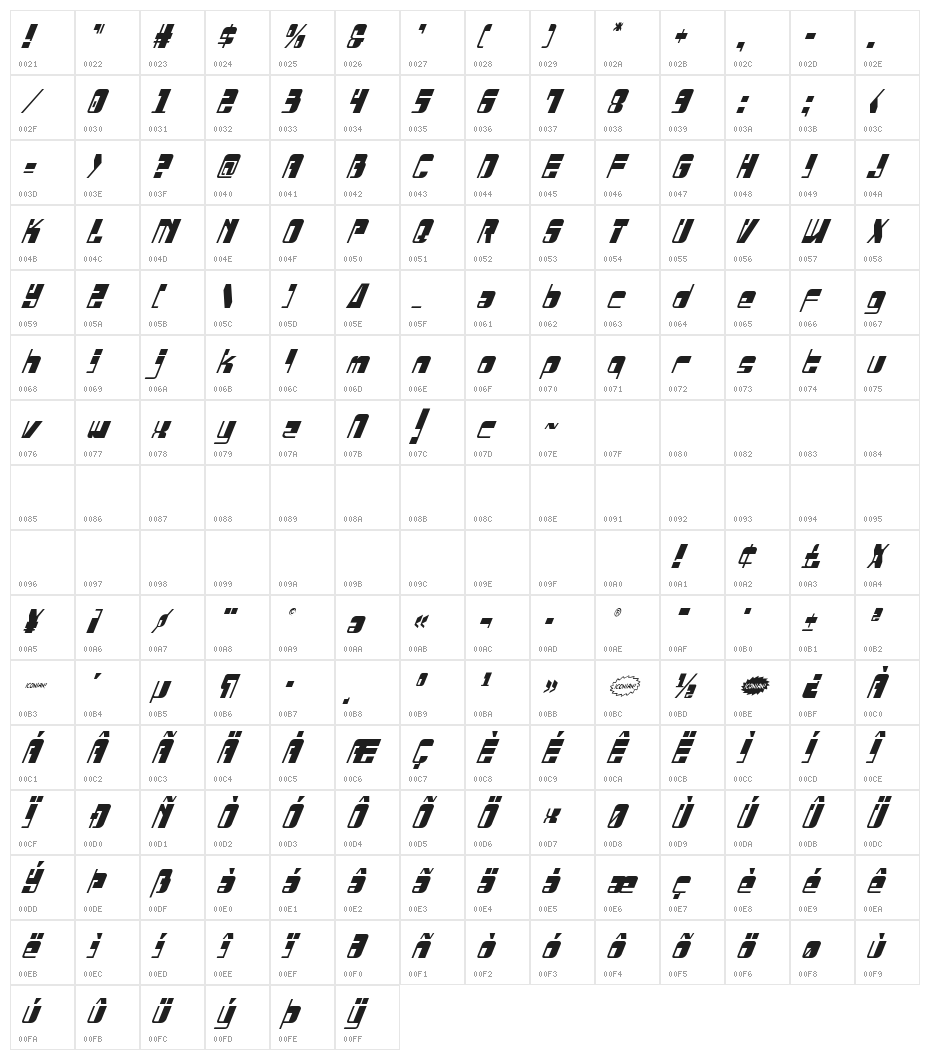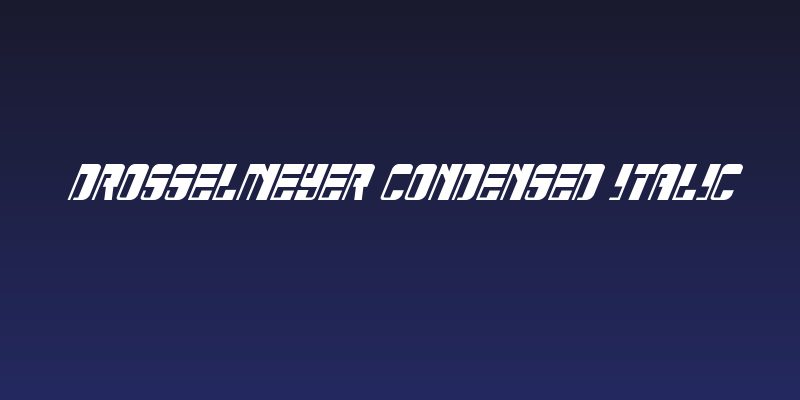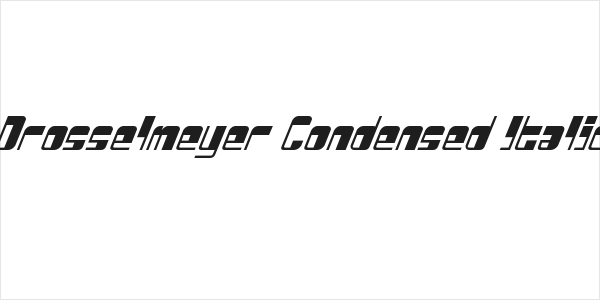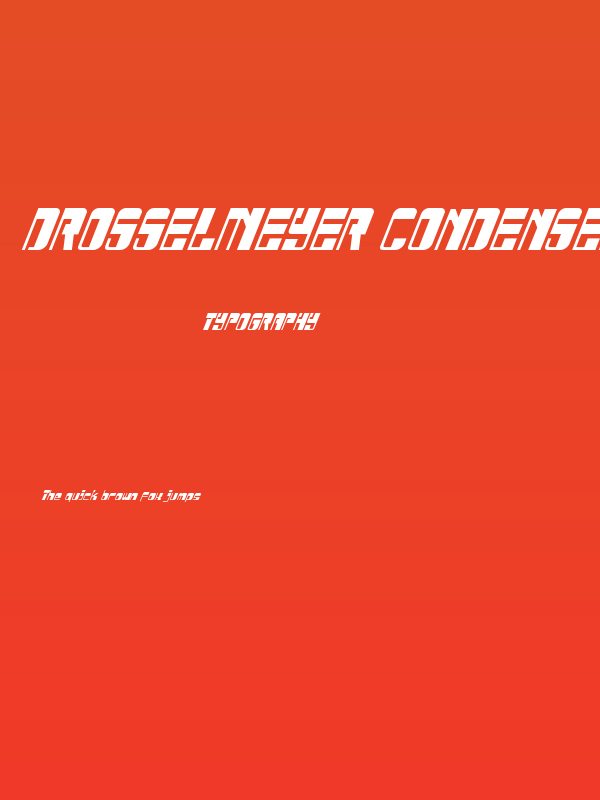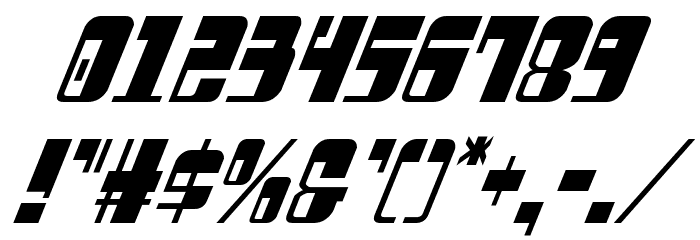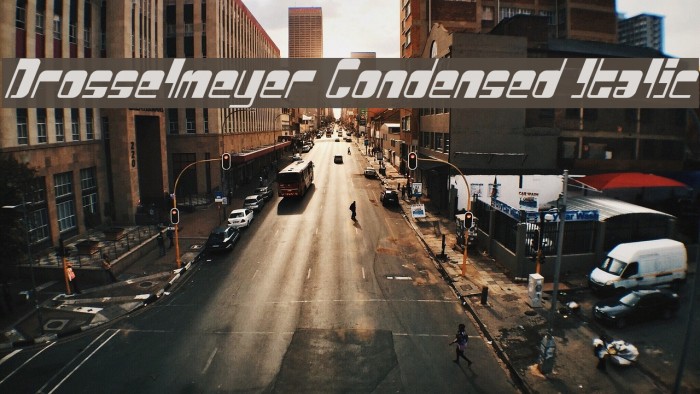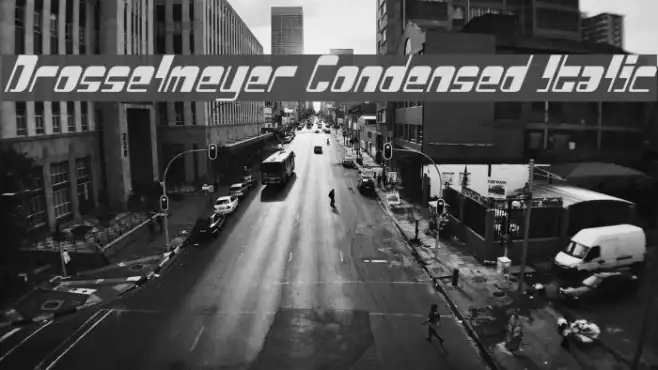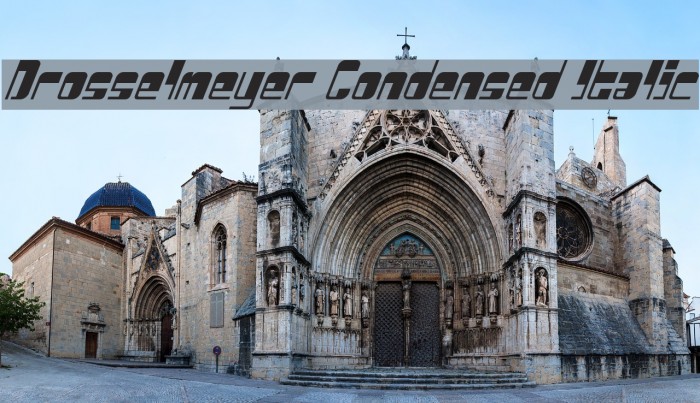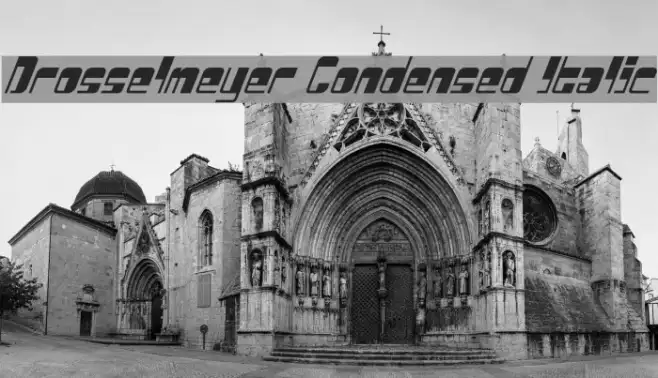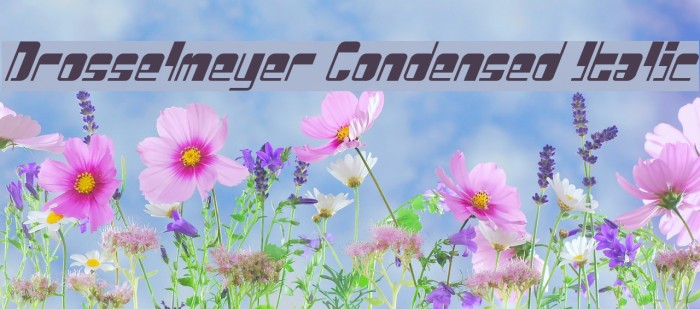
Drosselmeyer Condensed Italic Font
Drosselmeyer Condensed Italic Description
This font features a bold and dynamic design with a condensed and italicized style. The characters are sharply angled, giving a sense of motion and energy. The uppercase and lowercase letters maintain a consistent slant, enhancing the italic effect. The numerals and special characters follow the same stylistic cues, ensuring uniformity across all glyphs. The overall appearance is modern and sleek, making it suitable for projects that require a strong visual impact. The condensed nature of the font allows for efficient use of space, making it ideal for headlines and titles where space is limited.
| Proposed Projects | Ideal for sports branding, dynamic posters, modern advertising, and impactful headlines. |